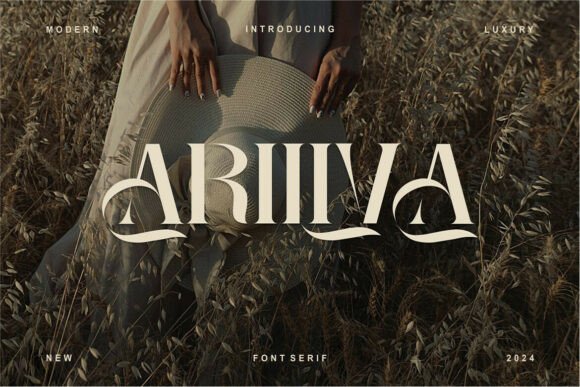
The Magical World of Ariliva Font: A Designer’s Dream Come True
I’ll never forget the moment I stumbled upon the perfect font for a client’s wedding invitation project. I had been searching for hours, trying out different fonts, but none seemed to capture the elegance and whimsy I was looking for. That was until I discovered Ariliva Font – a magical serif font that has since become a staple in my design toolkit. In this article, I’ll share my experience with Ariliva, its features, and how to make the most of it in your designs.
A Personal Review: What I Love About Ariliva
Ariliva Font is a carefully crafted serif font with a touch of elegance, making it perfect for a variety of design projects. Here are some things I love about it:
- ✨ Elegant and refined design, perfect for high-end projects
- ✅ Extensive character set, including support for multiple languages
- 💫 Beautifully designed swashes and stylistic alternates for added flair
- 📚 OpenType features, including ligatures and glyphs, for advanced typography
While Ariliva is an amazing font, there are a few quirks to be aware of:
- 🤔 Some users may find the font a bit too ornate for certain projects
- ⚠️ Limited availability of certain glyphs in non-OpenType supporting software
The Story Behind Ariliva
Ariliva was designed with the intention of creating a font that would bring a touch of magic to any design project. Inspired by traditional calligraphy and lettering, the font’s creator aimed to craft a unique and elegant serif font that would stand out in any design.
| What is Ariliva Font? | Ariliva Font is a magical serif font carefully created with a touch of elegance, perfect for a variety of design projects. |
| Is Ariliva suitable for body text? | While Ariliva is an elegant font, it’s best suited for headings and titles. For body text, consider a clearer font. |
Ariliva Font is a versatile and elegant serif font that can elevate any design project. With its extensive character set, OpenType features, and beautiful swashes, it’s perfect for designers, crafters, and creative hobbyists alike. Whether you’re working on a wedding invitation, a branding project, or a DIY craft, Ariliva is sure to bring a touch of magic to your designs.